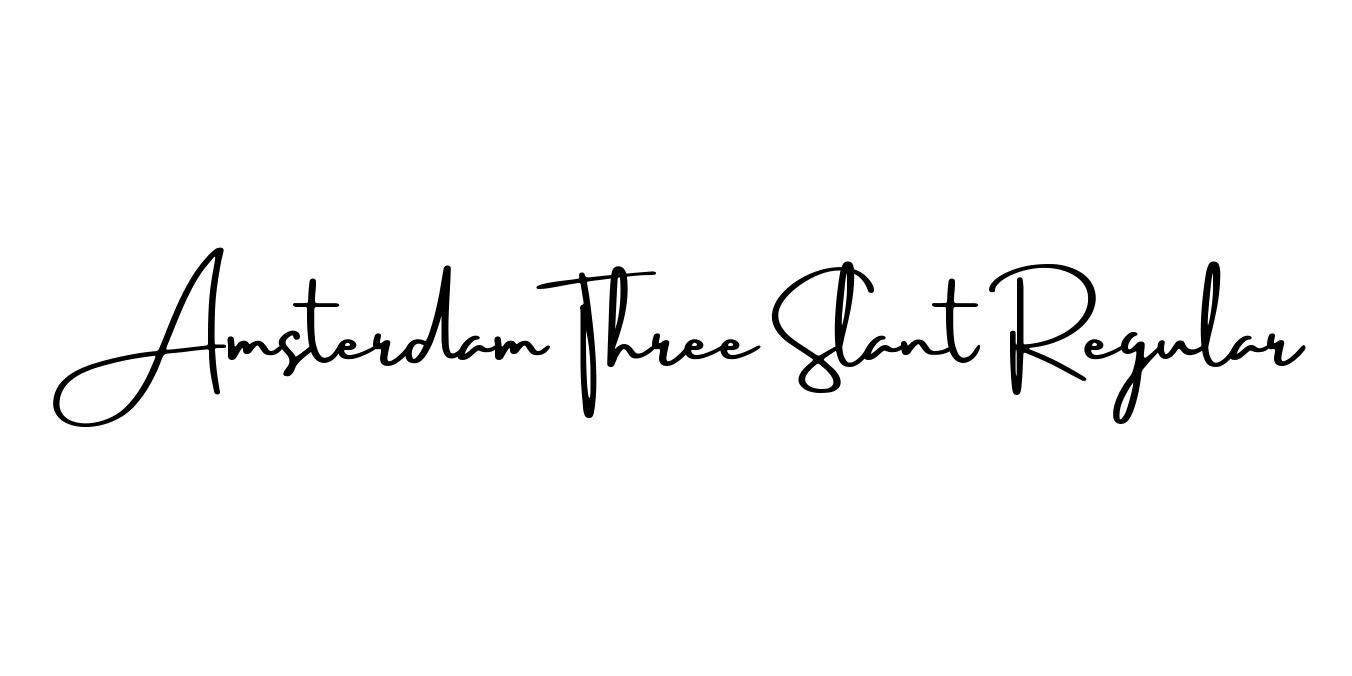
Amsterdam Three Slant Regular
Designed by Lettersiro
| Font Name | Amsterdam Three Slant |
| Designer | Lettersiro |
Amsterdam Three Slant Regular is a sophisticated signature-style typeface that belongs to the wider Amsterdam collection created by Lettersiro. This specific version, 'Three Slant', provides a more dynamic and italicized flow compared to the upright variants, mimicking the elegance of natural, fast-paced handwriting. It is characterized by its high-contrast strokes and fluid ligatures that lend a bespoke, artisan quality to digital typography.
The font is widely utilized in the luxury and fashion industries due to its upscale and personal feel. Whether used for high-end editorial headers or personal branding, Amsterdam Three Slant offers a perfect balance between legibility and decorative flair, making it a versatile tool for designers who want to convey a sense of movement and exclusivity in their visual compositions.
Amsterdam Three Slant Regular Best Uses
Perfect for creating signature-style personal branding and high-end company logos.
Ideal for elegant invitations, RSVP cards, and sophisticated event signage.
Excellent for stylized quotes, Instagram stories, and watermark overlays on photography.
Great for magazine headings and fashion spread titles that require a personal touch.